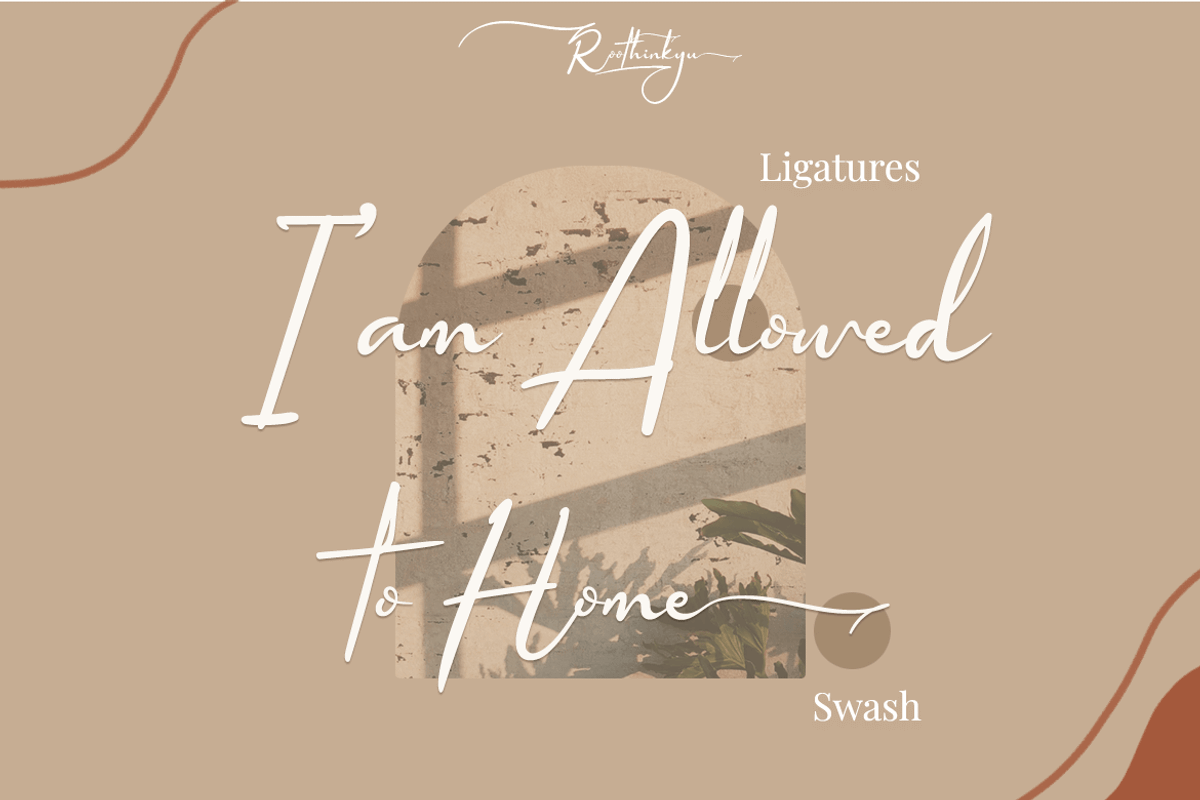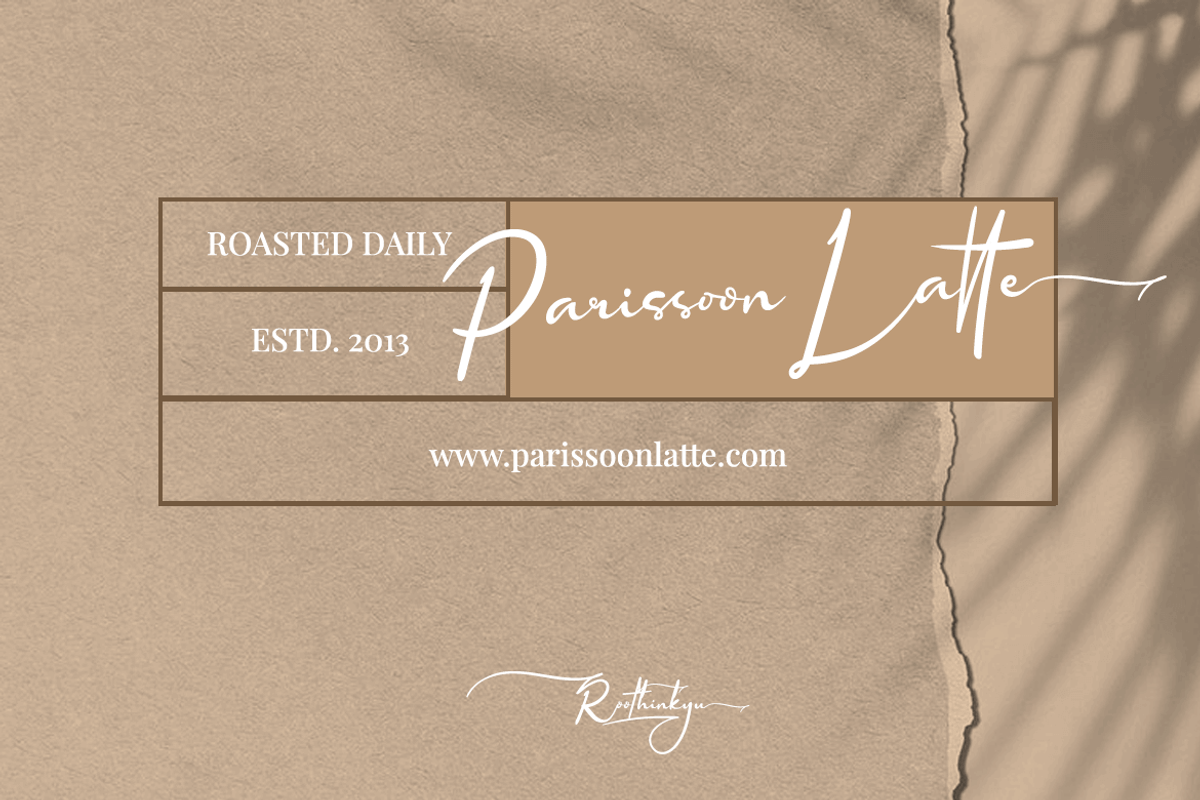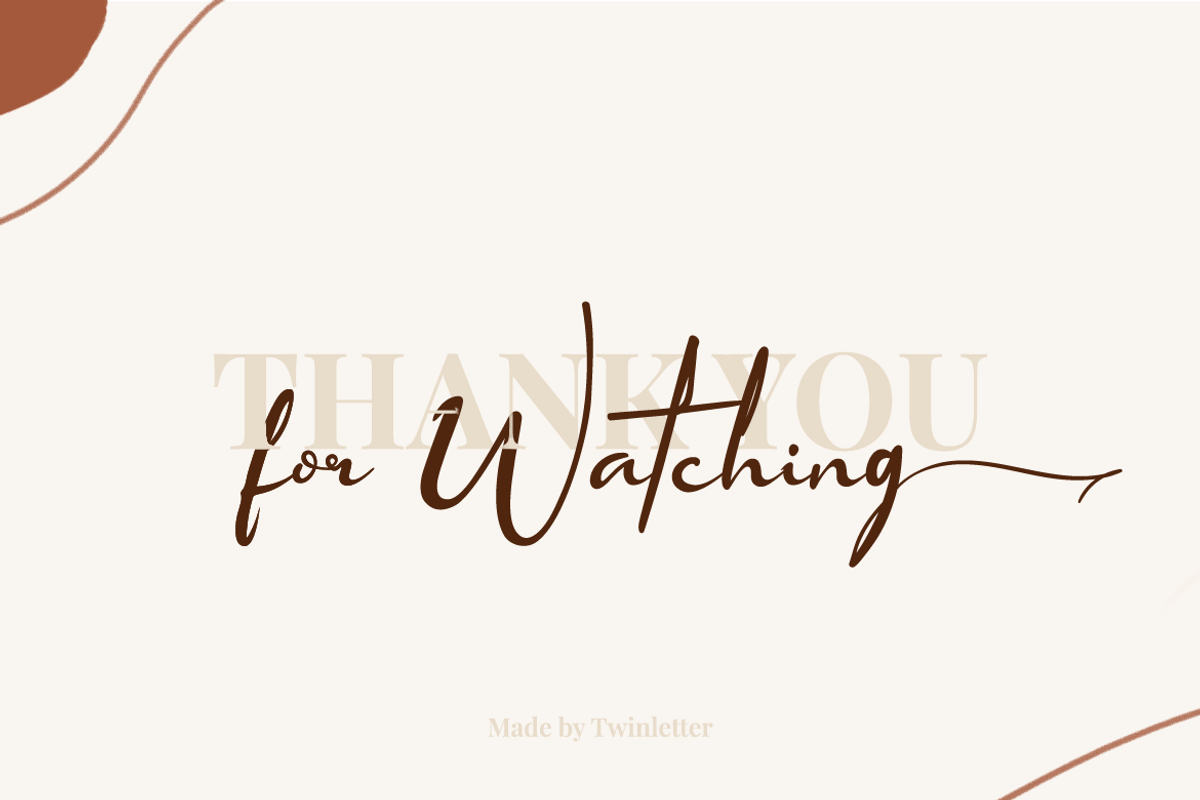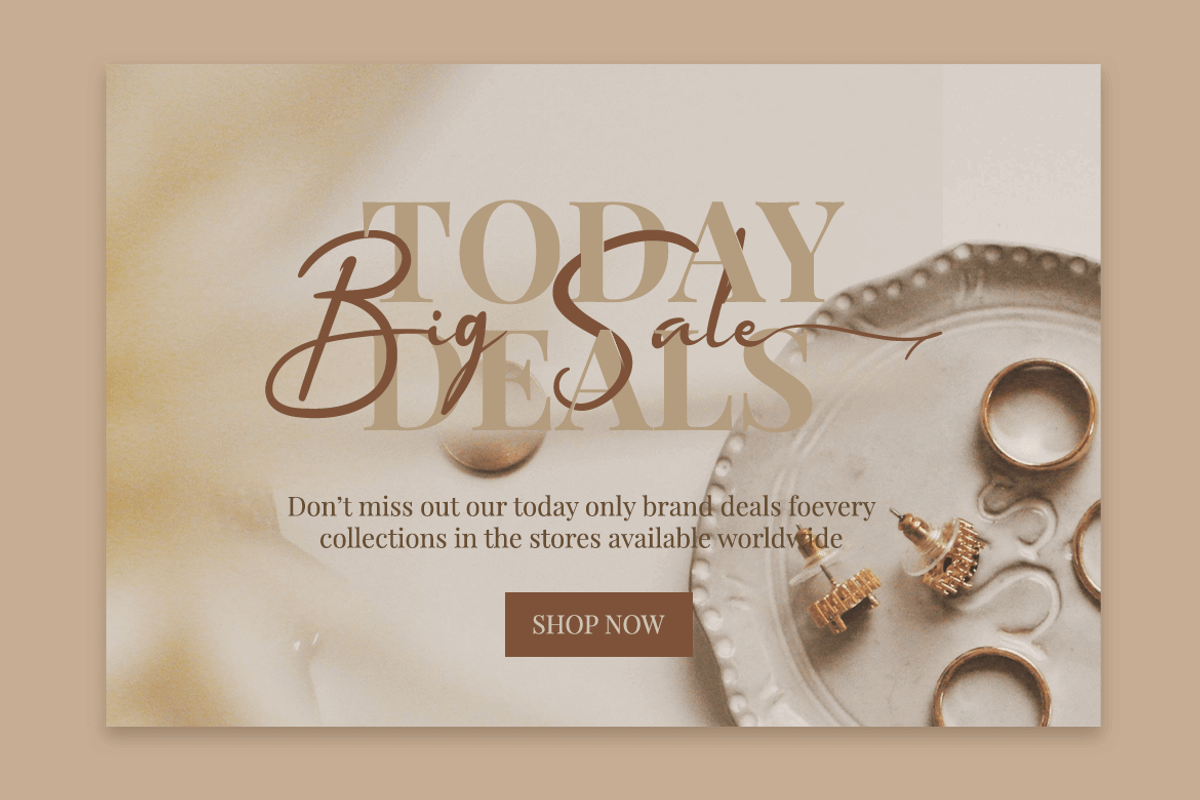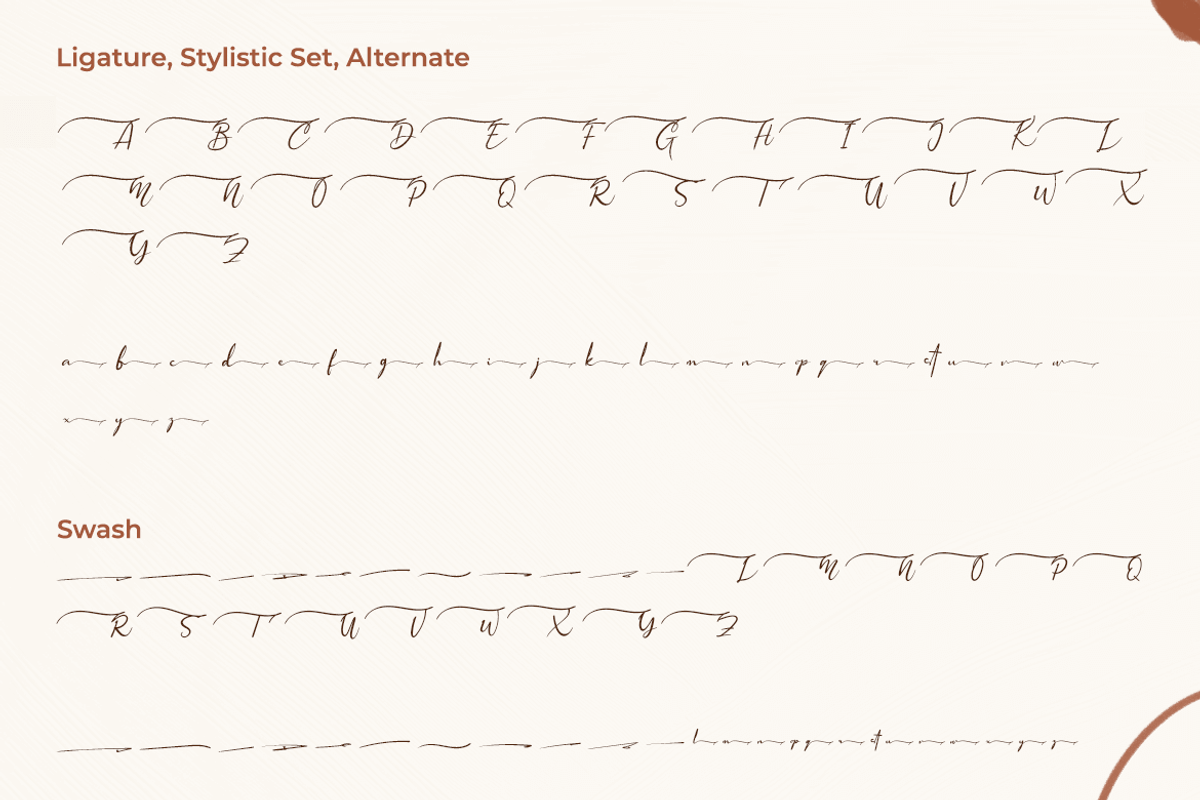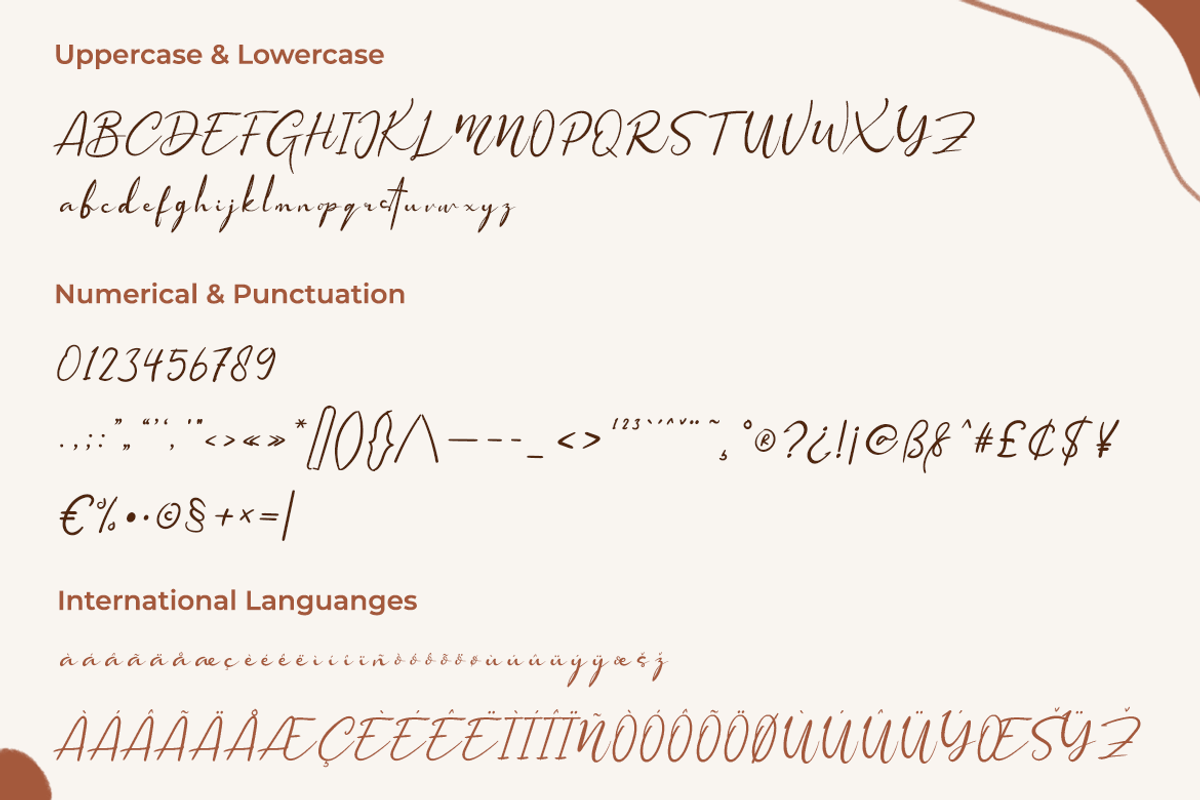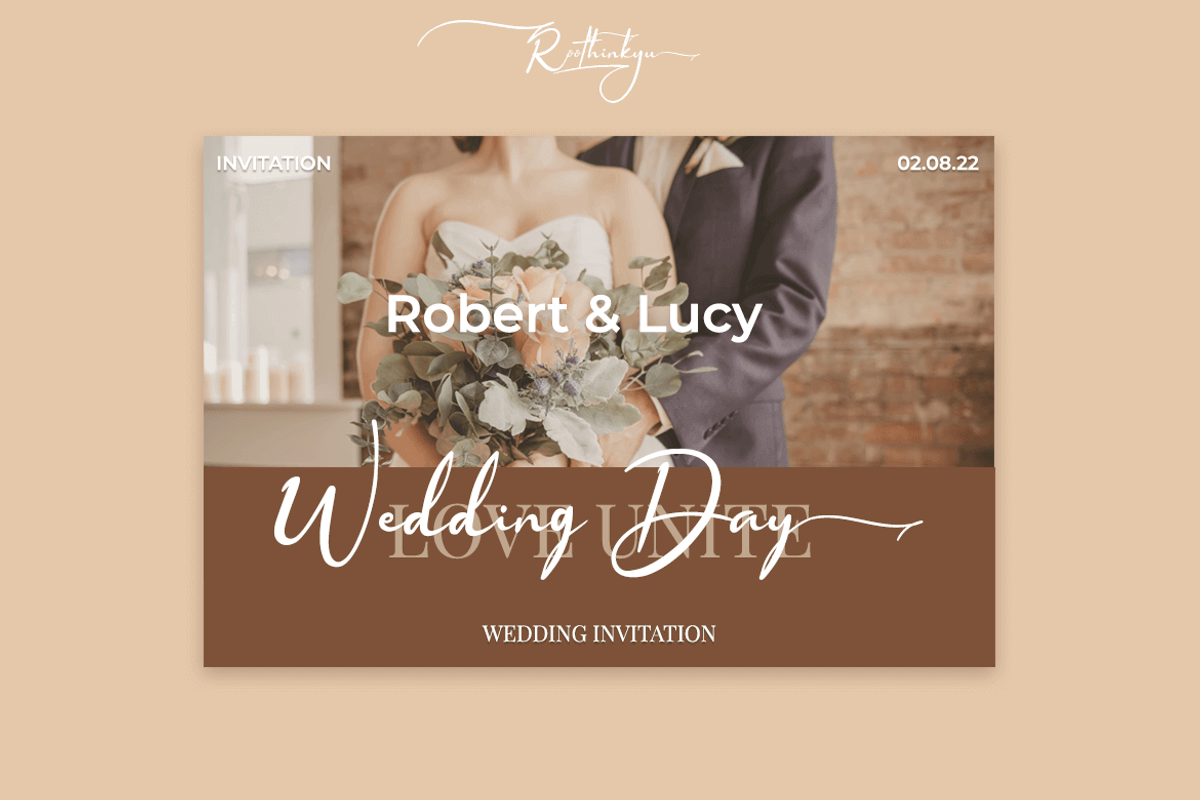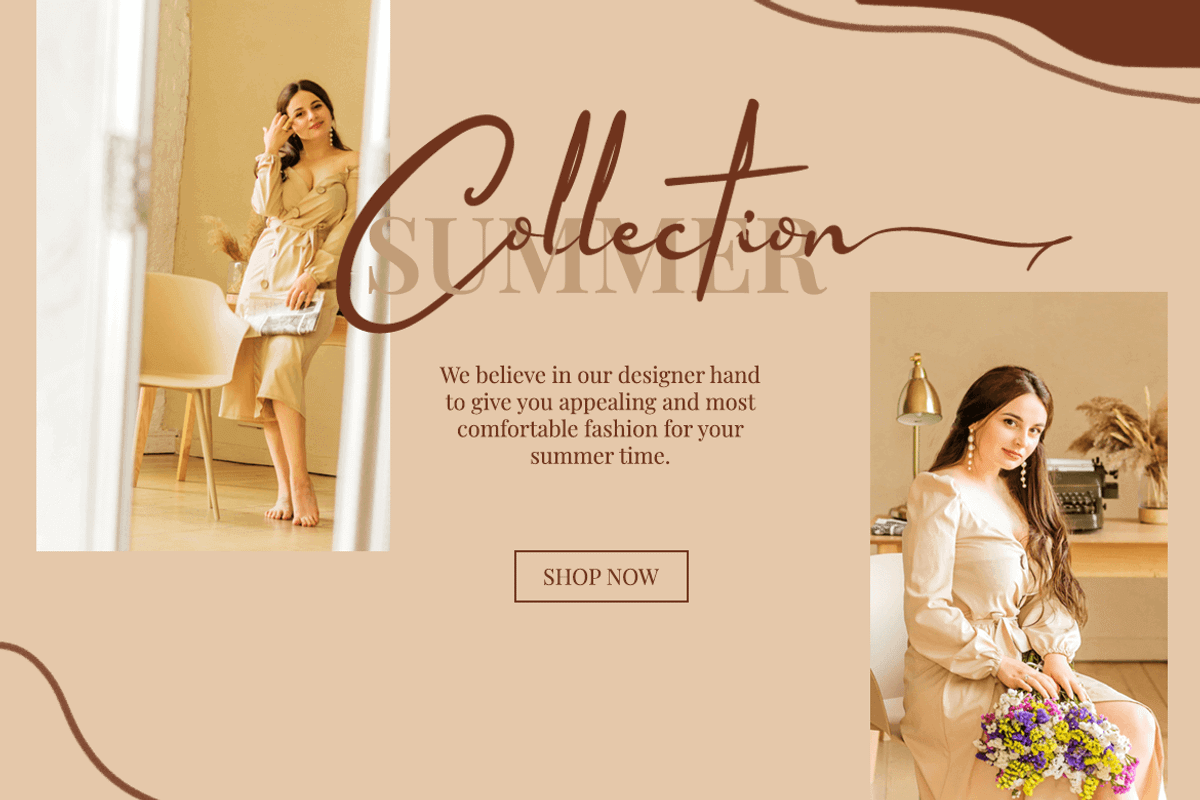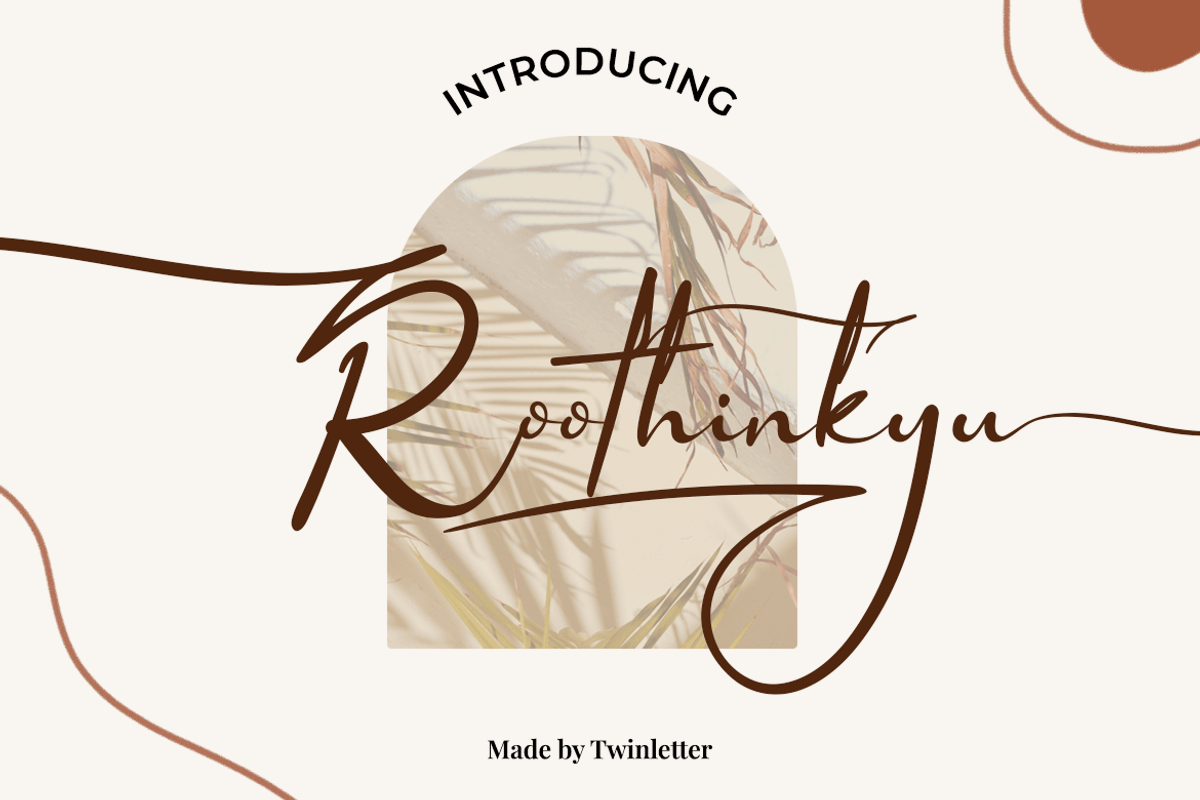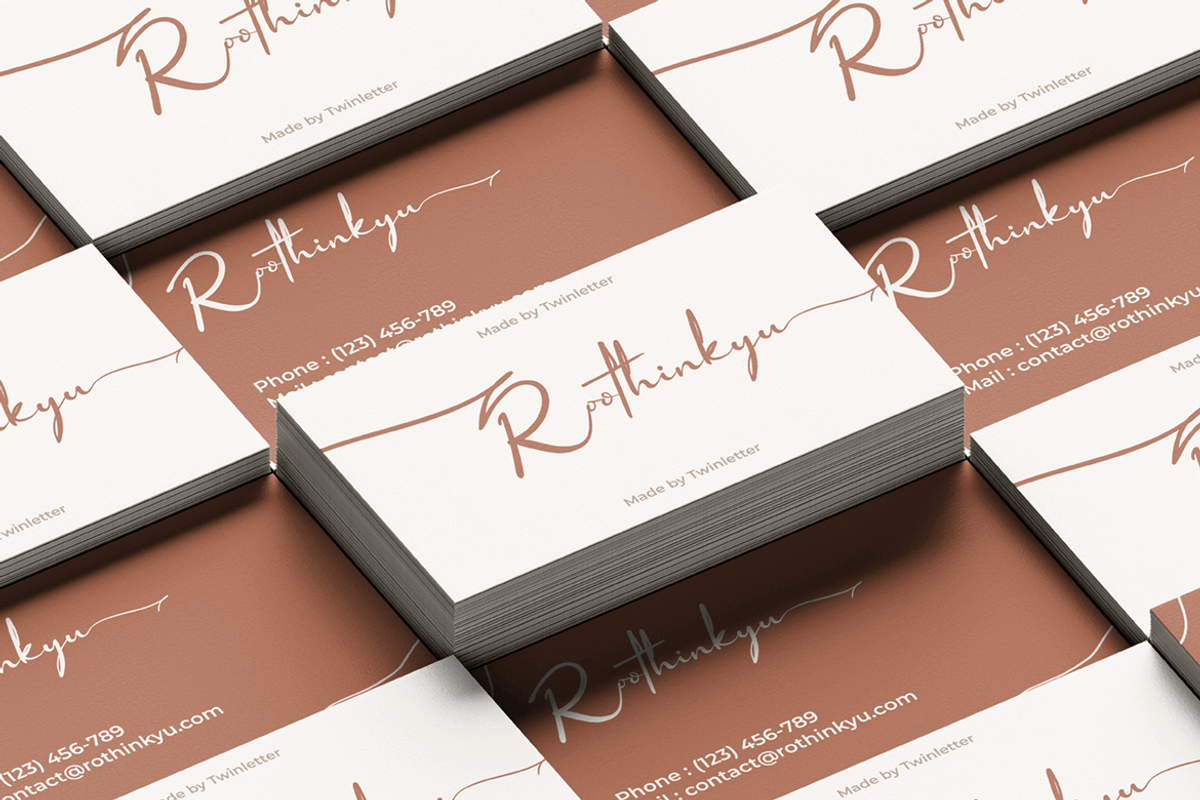
Roothinkyu
Roothinkyu is a signature font with modern and elegant styled writing, with a natural and aesthetic flow. This font has a dazzling shape when applied to your various projects, both for branding and your various creative needs.
This font is perfect for business cards, photography studios, autographs, interior designs, model names, coffee late, travel, weddings, cosmetics, jewelry, social media posts, product packaging, watermarks, special events or anything else. Start using this font to add an authentic and heartfelt vibe to any design project.